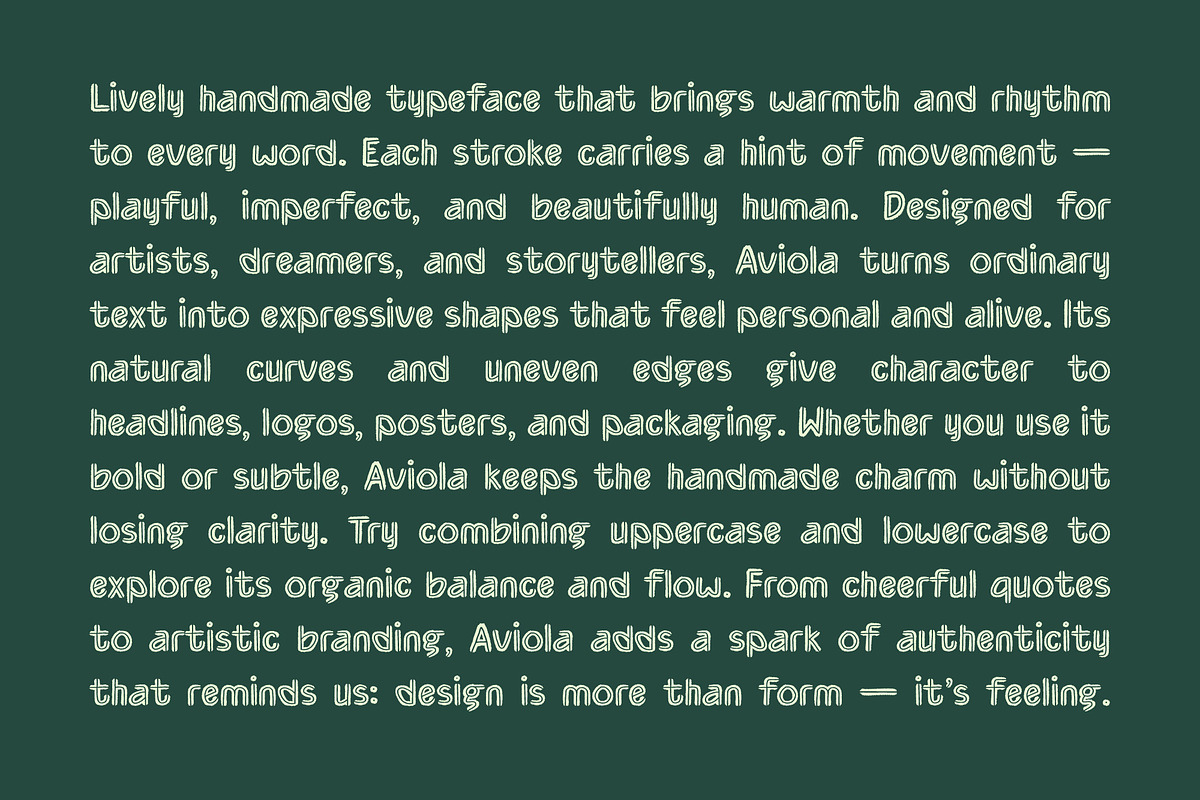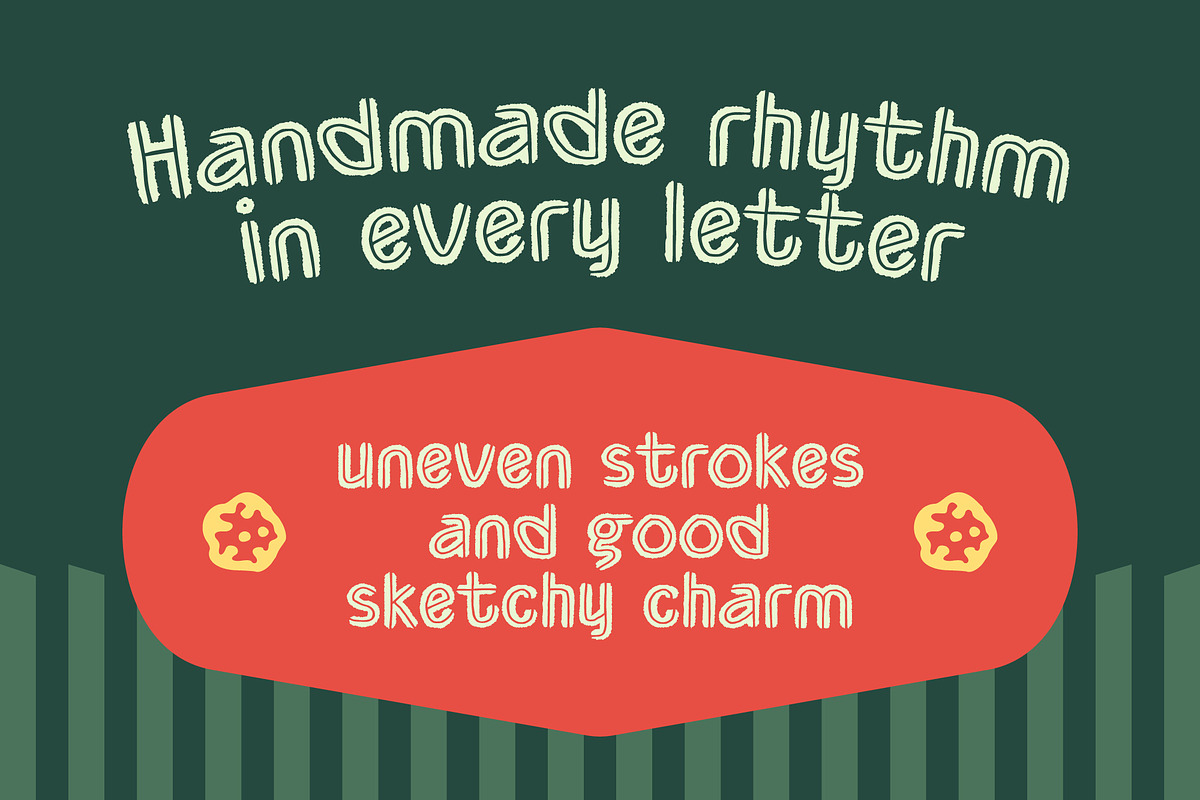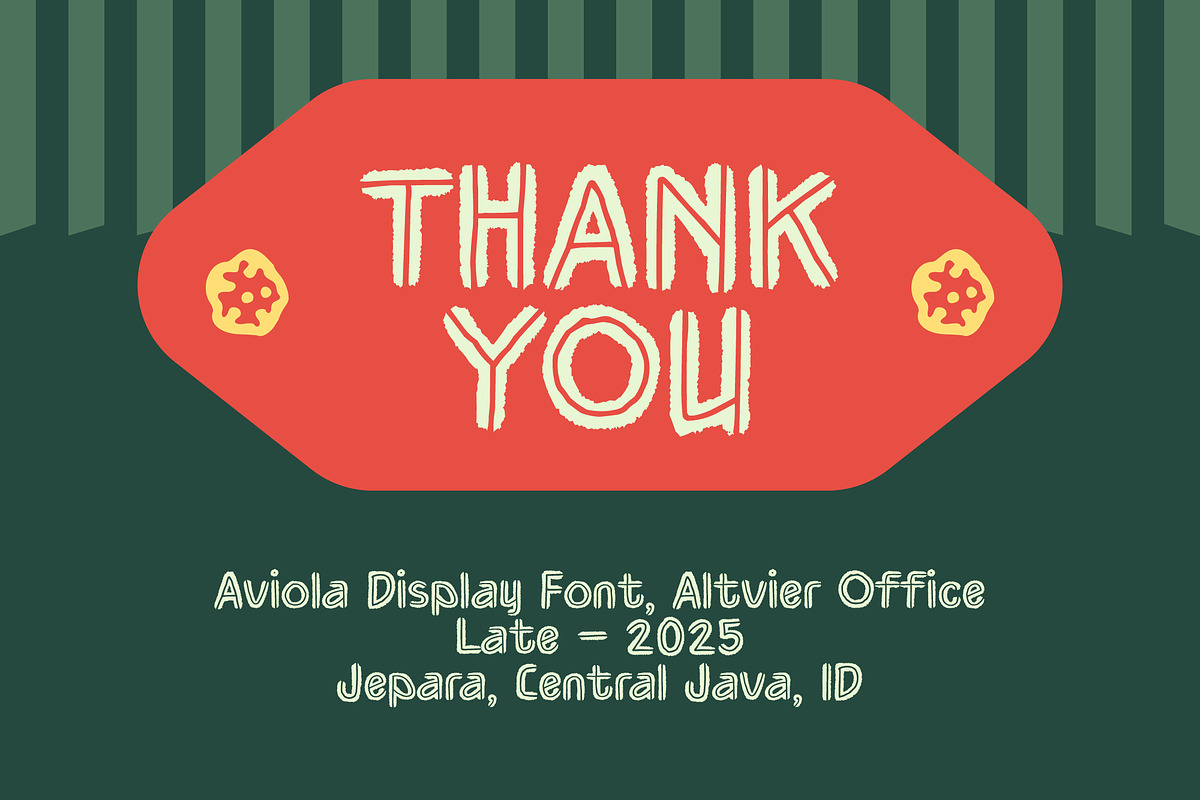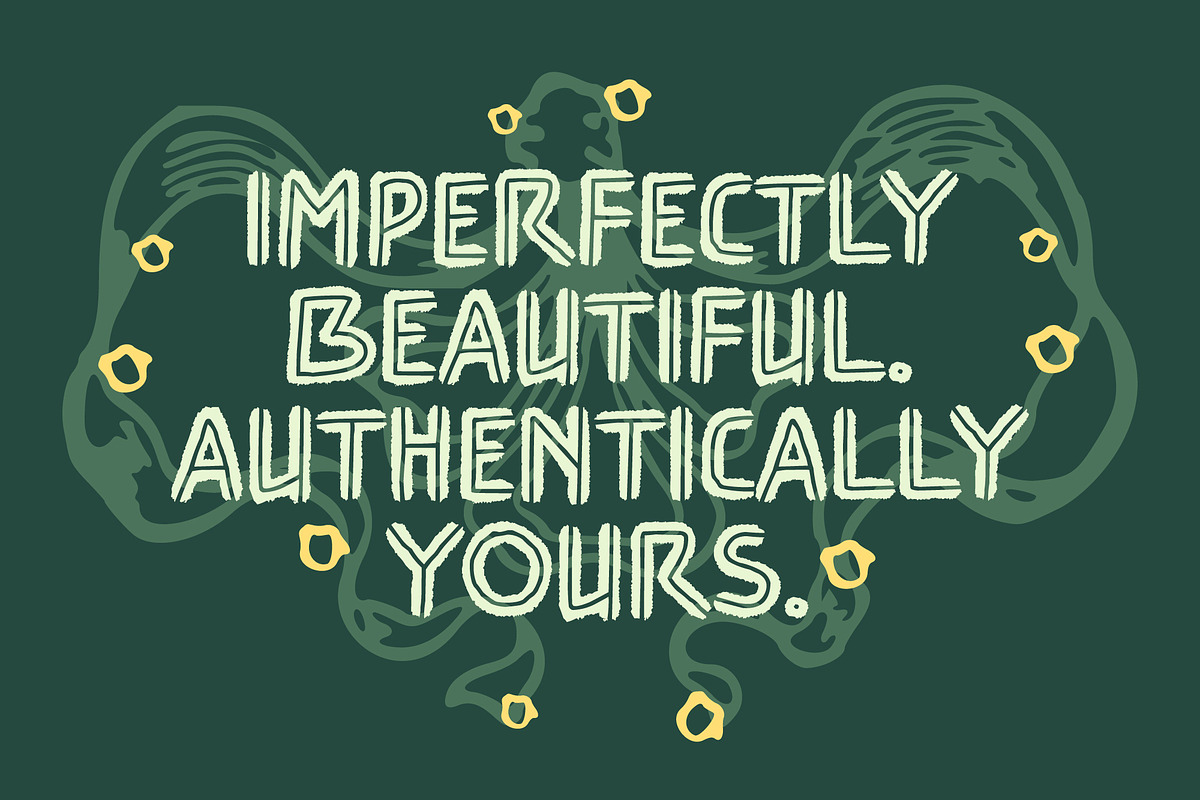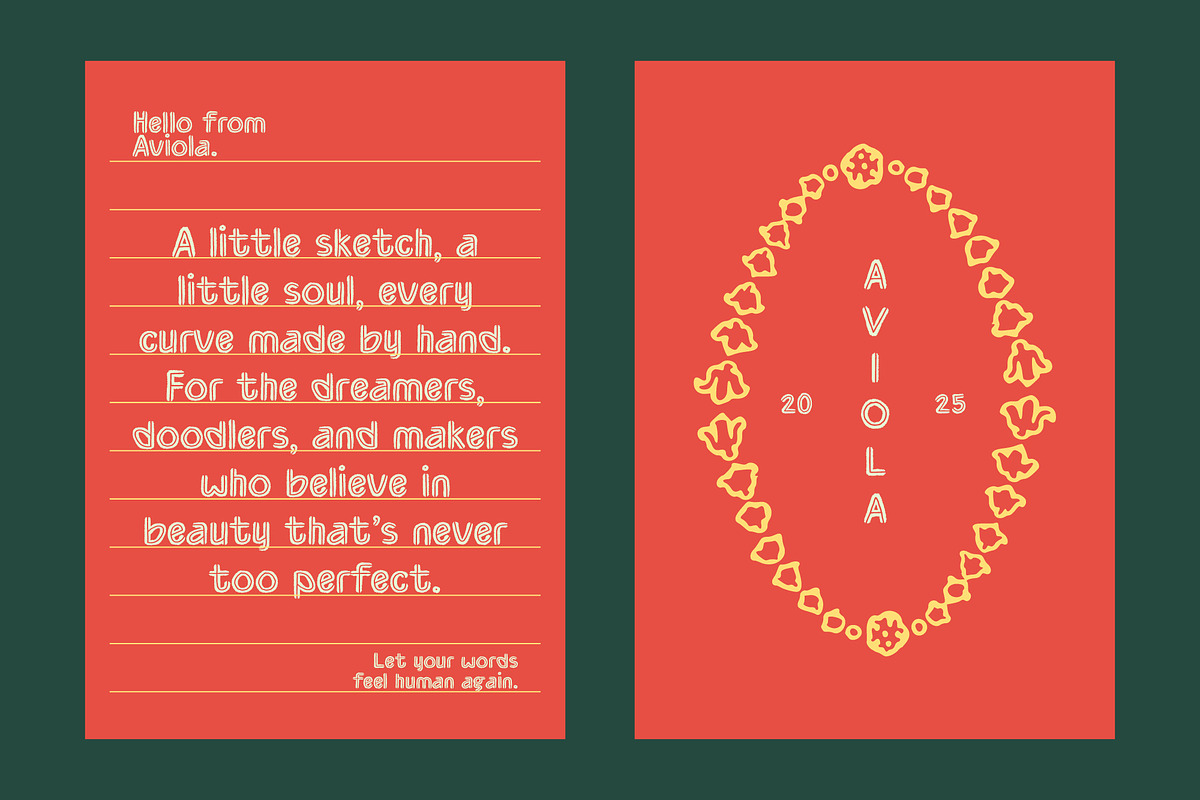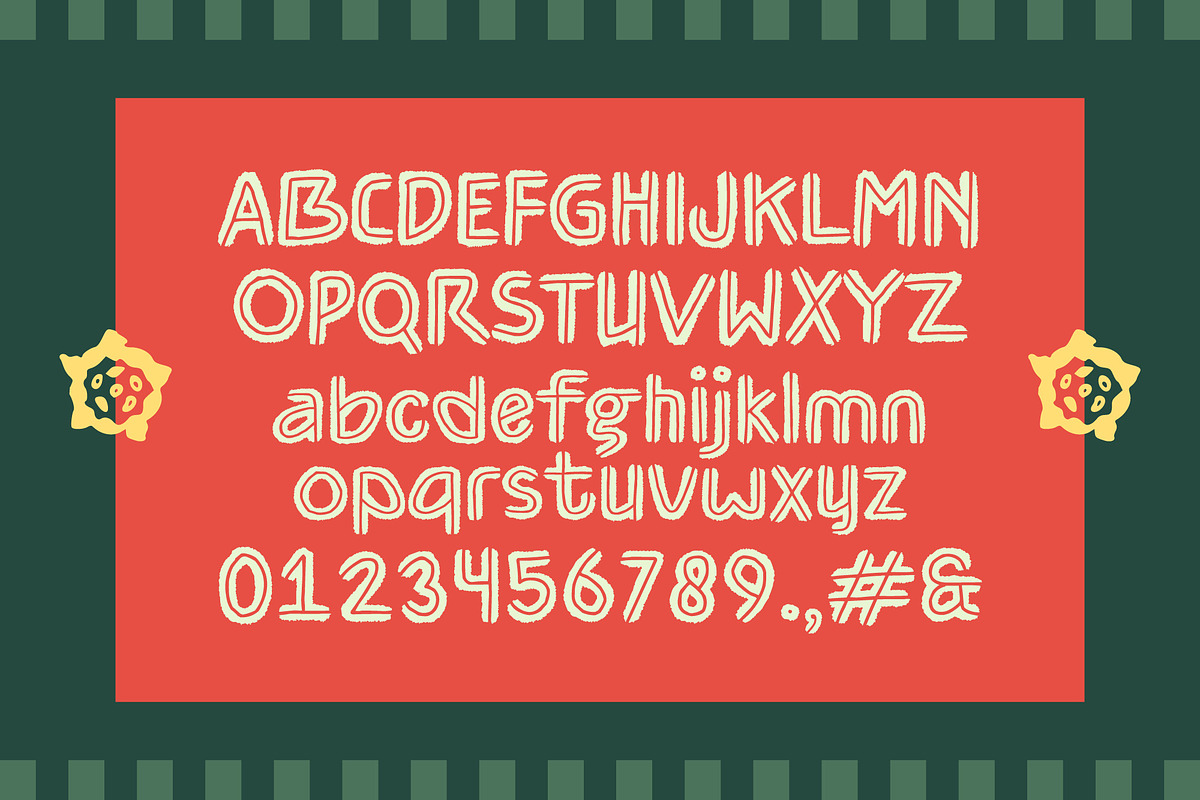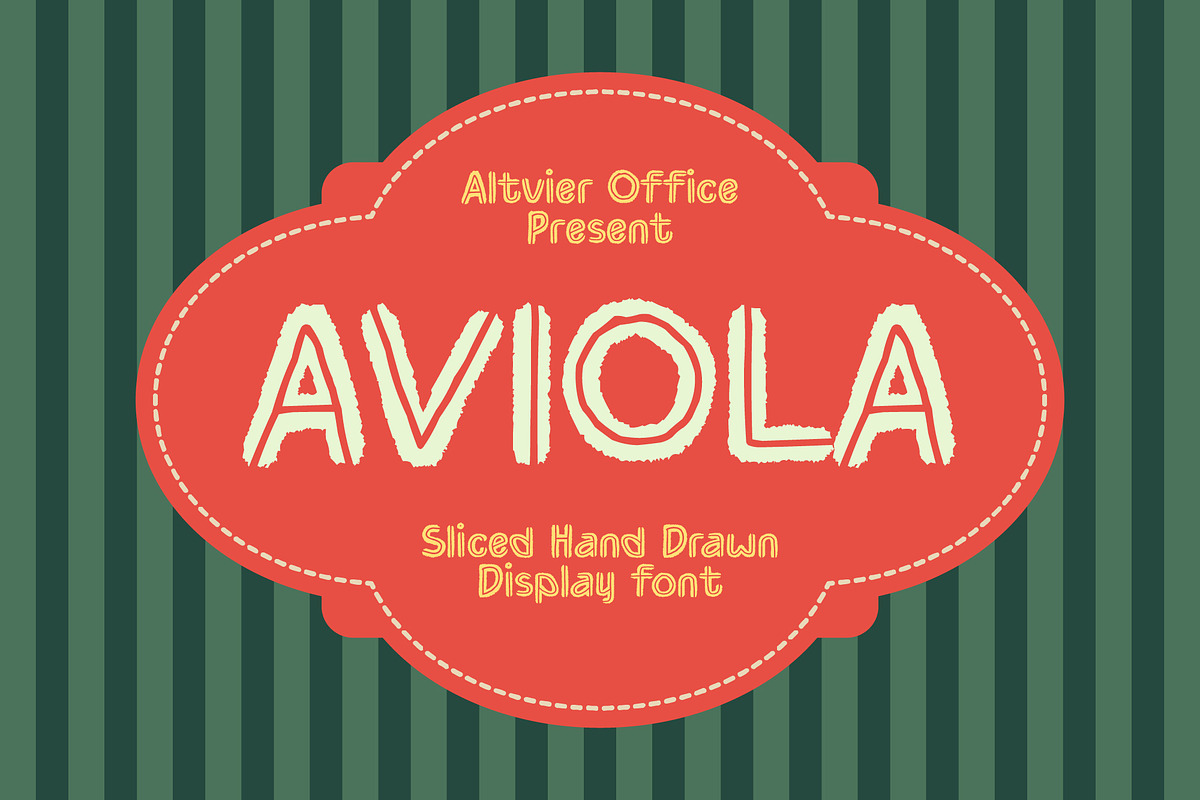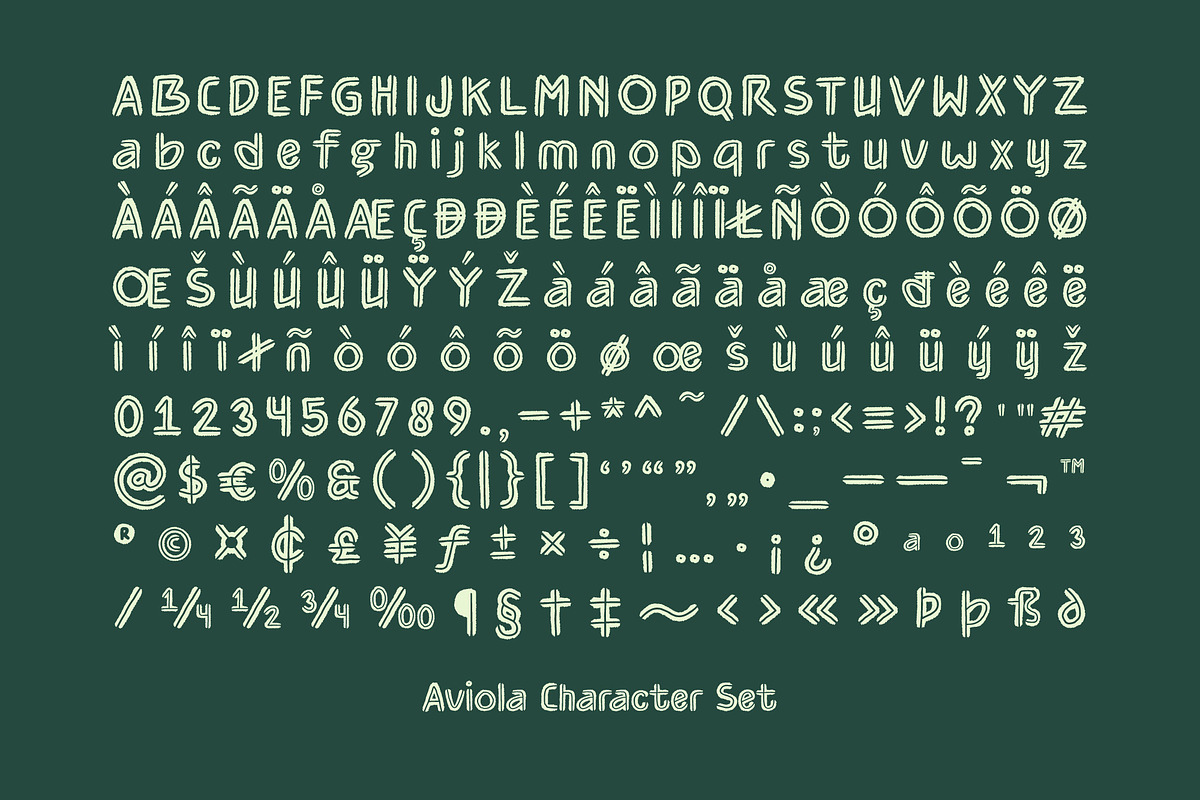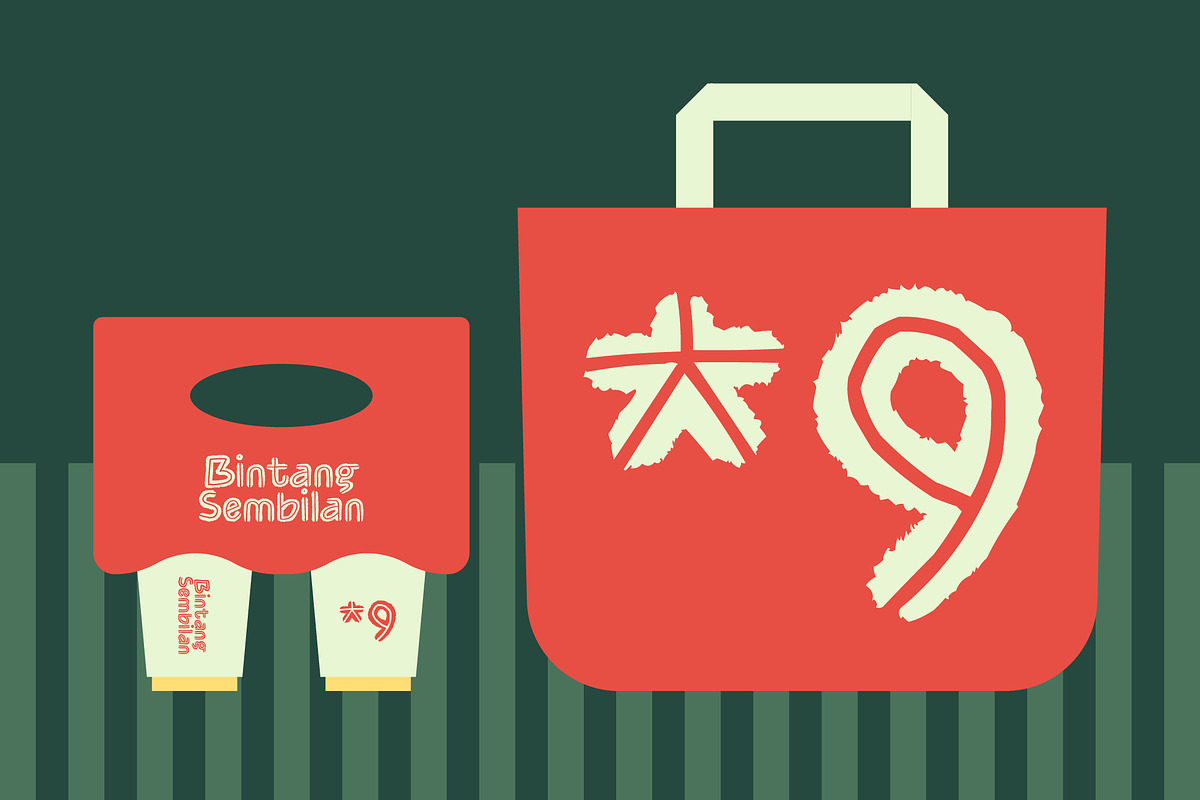
Aviola - Hand drawn Sans
Aviola celebrates the spirit of creation — bold lines, playful strokes, and imperfect rhythm that feels alive on the page. Each letter was drawn with movement in mind, shaped by curiosity and freedom. It’s a font that doesn’t try to be flawless, but instead embraces the charm of the handmade process. From branding and posters to packaging or quotes, Aviola adds that personal touch that turns simple words into expressive art.